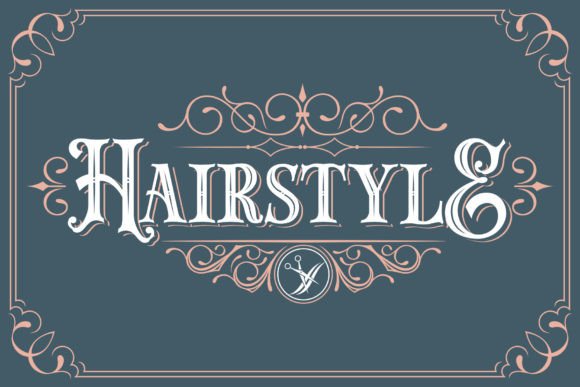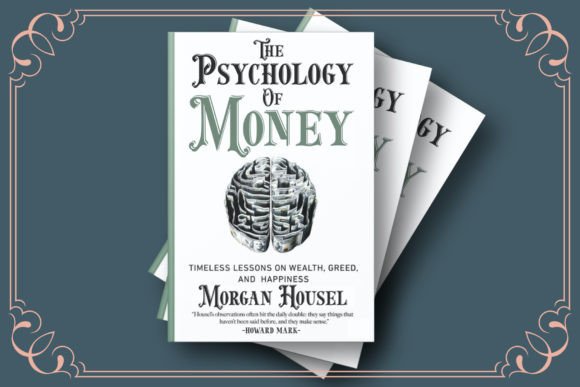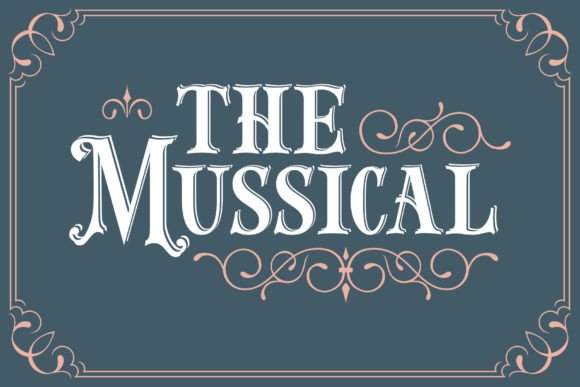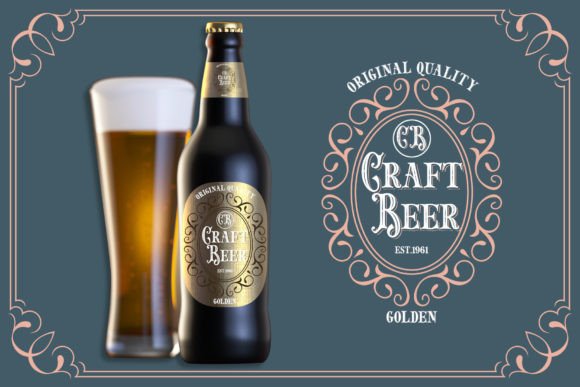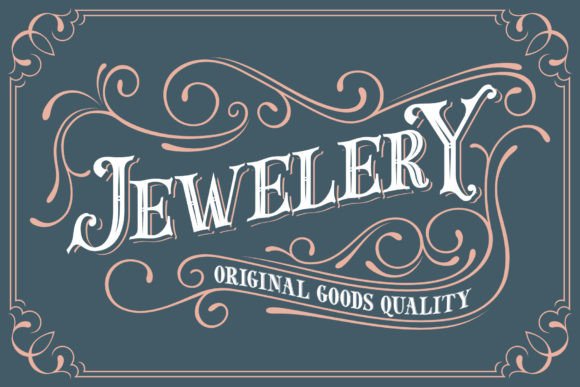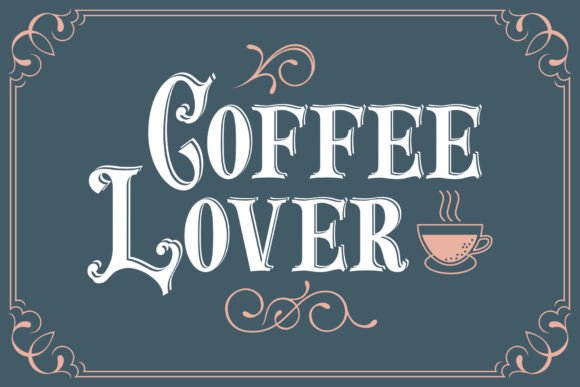
Introduction to Sansdiego Font
Introducing the new exploratory Sansdiego, this typeface inspired by European empire-era forms of writing.
Sansdiego typeface is perfect for classic Victorian themed designs, beer packaging, whiskey, barbershop, pomade, tattoo studio logos and so on This font comes with additional effects: Normal – style – double – Shadow, packaged as a layered font.
Key Features of Sansdiego Font